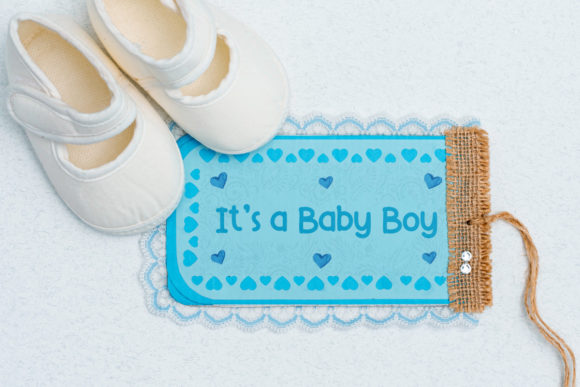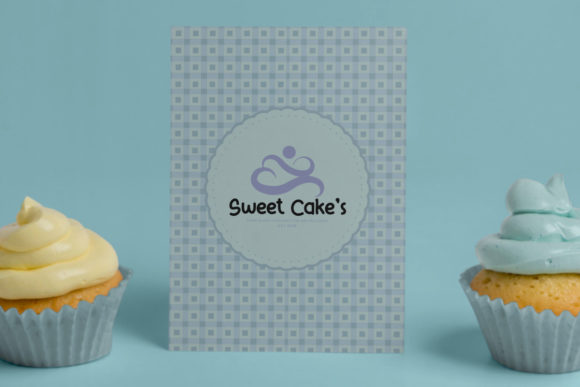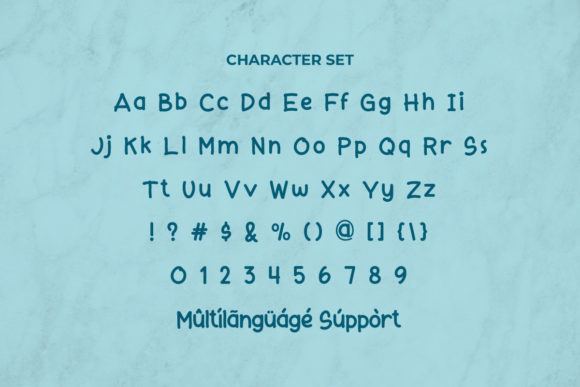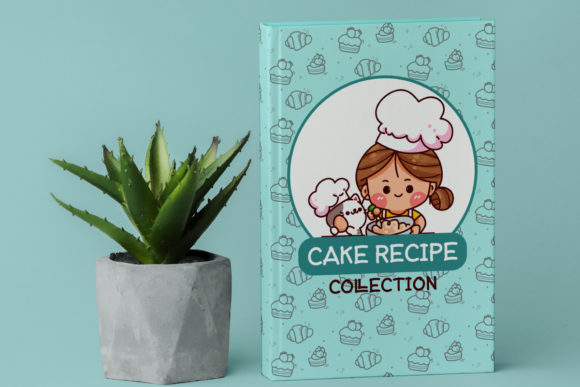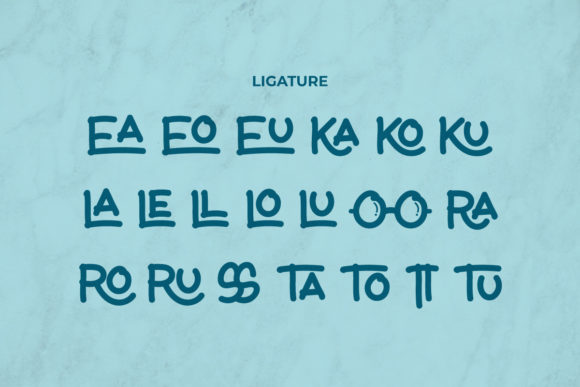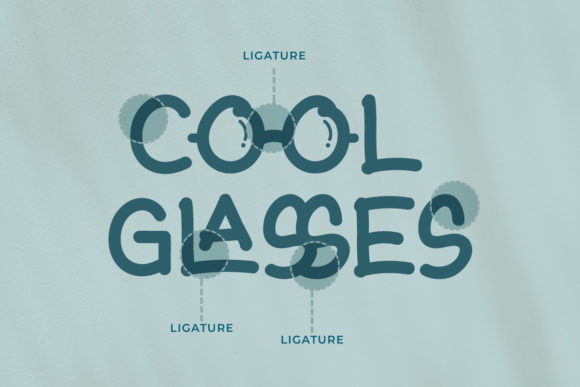
Introducing Cool Glasses Font: Add a Playful Touch to Your Designs
Are you tired of using the same old fonts for your projects? Look no further! Cool Glasses Font is a cute cartoon display font that is sure to add a unique and playful touch to your designs. This font comes with eyeglass alternative characters, making it a standout in the world of typography.
What Makes Cool Glasses Font So Special?
Cool Glasses Font is a display typeface that is perfect for projects that require a bit of whimsy and fun. Its playful design makes it ideal for use in bakeries, labels, book titles, quotes, and more. The font’s unique eyeglass alternative characters add an extra layer of personality to your text, making it truly one-of-a-kind.
Whether you’re a designer or a crafter, Cool Glasses Font is a great addition to your toolkit. The font’s playful design makes it perfect for use in a variety of projects, from branding and advertising to crafting and DIY projects. With Cool Glasses Font, you can add a touch of personality to your work and make it stand out from the crowd.
Use Cases for Cool Glasses Font
So, what can you use Cool Glasses Font for? The possibilities are endless! Here are a few ideas to get you started:
- Bakeries: Use Cool Glasses Font to create adorable labels and signs for your bakery. The font’s playful design is perfect for adding a touch of whimsy to your branding.
- Book Titles: Add a touch of personality to your book titles with Cool Glasses Font. The font’s unique design makes it perfect for use in book covers and titles.
- Labels: Use Cool Glasses Font to create fun and colorful labels for your products. The font’s playful design is perfect for adding a touch of personality to your branding.
- Quotes: Add a touch of whimsy to your quotes with Cool Glasses Font. The font’s unique design makes it perfect for use in social media graphics and inspirational quotes.
Why Choose Cool Glasses Font?
So, why should you choose Cool Glasses Font for your projects? Here are just a few reasons:
- Unique Design: Cool Glasses Font has a unique and playful design that is sure to make your projects stand out.
- Eyeglass Alternative Characters: The font’s eyeglass alternative characters add an extra layer of personality to your text.
- Versatile: Cool Glasses Font is perfect for use in a variety of projects, from branding and advertising to crafting and DIY projects.
Here are a few tips for using Cool Glasses Font:
- Experiment with Different Sizes: Cool Glasses Font looks great in a variety of sizes. Experiment with different sizes to find the one that works best for your project.
- Pair with Other Fonts: Cool Glasses Font pairs well with a variety of other fonts. Try pairing it with a bold font for a fun and playful look.
- Use in Combination with Images: Cool Glasses Font looks great in combination with images. Try using it to add text to your images for a fun and playful look.
Cool Glasses Font is a unique and playful font that is sure to add a touch of personality to your designs. With its eyeglass alternative characters and versatile design, it’s perfect for use in a variety of projects. Whether you’re a designer or a crafter, Cool Glasses Font is a great addition to your toolkit.